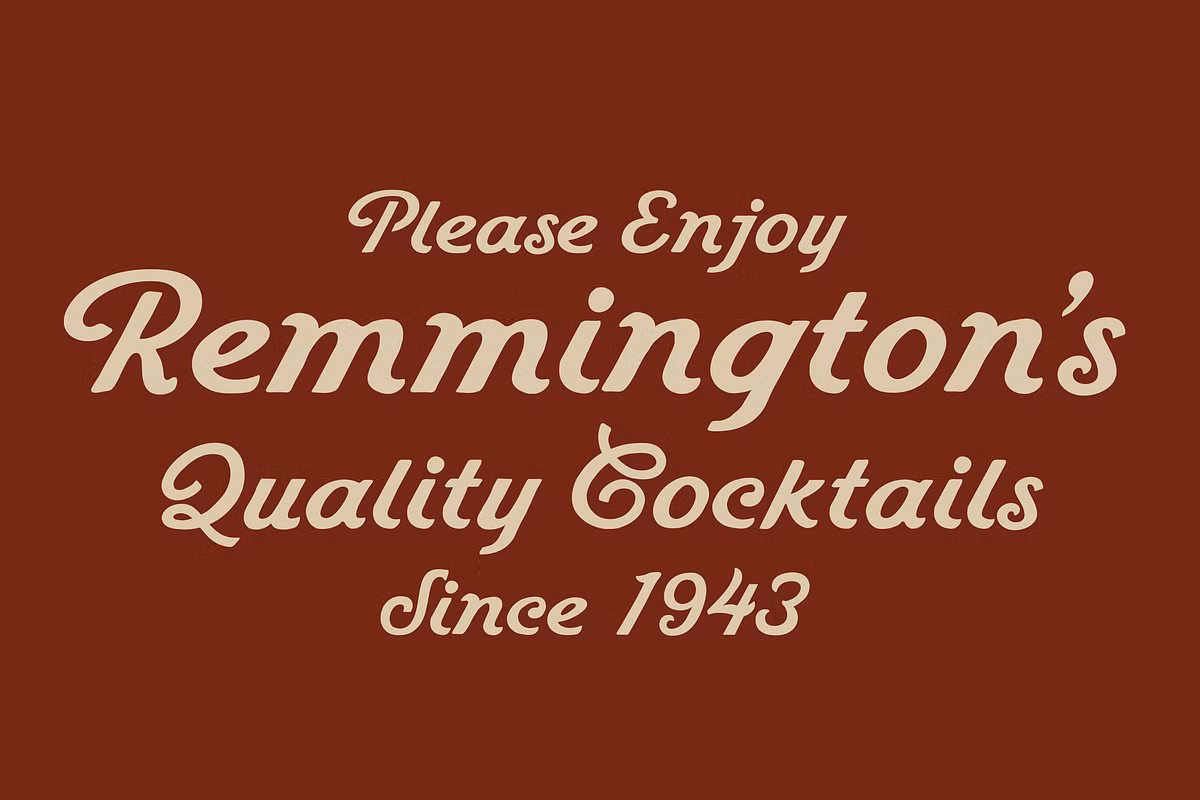
Mendocino: Vintage Hand-Painted Script Font for Authentic Design
Mendocino
Mendocino: Vintage Hand-Painted Script Font for Authentic Design
Mendocino is a non‑connective script font that looks like the hand‑painted signs. Mendocino has hand‑drawn shapes that give the feeling and the clear character to any design. I use Mendocino when I need a hand‑made look, for a design project. I also see businesses use Mendocino to give their brand a hand‑made look. Mendocino can work in ways. Mendocino can make a design look better.
Sample of Mendocino script font on a sign
Mendocino’s hand-painted aesthetic showcased.
Design Style of Mendocino
The design style of Mendocino sets Mendocino apart, from typefaces. Mendocino captures the look of hand painted signs. Mendocino uses lines and a few irregular shapes that bring a feeling and a real look. The non connective style of this script font gives Mendocino a casual look. The look makes Mendocino a good choice, for projects that need a touch.
When I look at Mendocino I see that each letter, in Mendocino is carefully made to feel natural like the sign painters. The different stroke weights give Mendocino a look. The different stroke weights let each word flow smooth and keep each letter unique. This makes Mendocino more, than a font. Mendocino becomes a visual story tool that can show feelings and reach people. I feel that Mendocino tells a story.
Character Sets and Features
Mendocino is made for uses. Mendocino includes a full character set. Mendocino gives the alphabet, the numerals, the punctuation and the alternates. The large set lets you write in ways, in your typography. The numerals match the look of the letters. The numbers fit into your designs without breaking the flow. I see how the numbers blend in when I work with Mendocino.
Character set example of Mendocino font
Mendocino’s comprehensive character set displayed.
Besides the letters Mendocino gives designers extra letter shapes. The extra shapes let designers add looks and make text feel unique. I have used Mendocino for custom logos and branding work. The alternates work well for any project that needs a feel. Using the alternates designers can make a look that moves and catches the eye. The result is a feel that helps the work stand out in a market.
Use Cases for Mendocino
Mendocino is flexible. The Mendocino fits design projects. Here are some real use cases where the Mendocino shines:
• Branding and Logo Design: Mendocino’s authentic, handcrafted aesthetic helps businesses show an image. In my experience Mendocino’s authentic handcrafted aesthetic works well, for brands, cafes and boutique shops. Mendocino’s handcrafted aesthetic feels genuine.
• Event Invitations: I have seen Mendocino add a touch to Event Invitations. The personal touch makes Event Invitations look nicer. The personal touch also sets the tone for the occasion.
• Packaging: I notice the vintage charm of Mendocino makes the charm of Mendocino ideal, for product packaging. The vintage charm of Mendocino works, for goods or organic products. The vintage charm of Mendocino gives a look that is needed.
• Marketing Materials: I use Mendocino on posters, flyers and social media graphics. Mendocino makes the design clear and strong. Mendocino helps the audience understand the message. Mendocino lifts the promotion work.
Mendocino font used in marketing materials
Mendocino enhances marketing materials effectively.
Typography benefits from the good font pairing. Good font pairing lifts the designs impact. Mendocino matches the typefaces. Mendocino lets the designer build balanced compositions that feel natural. Here are the pairing suggestions:
• Sans Serif Fonts: I have found that pairing Mendocino with a sans serif font such, as Montserrat or Open Sans works well. The modern look of the sans serif fonts sits against the style of Mendocino. The contrast creates a look, for designs.
• Serif Fonts: If you want a look I like to pair Mendocino with a serif font such, as Playfair Display. The serif font Playfair Display fits the curves of Mendocino. The serif font Playfair Display and Mendocino work well, for invitations. The serif font Playfair Display and Mendocino also work for high end branding.
• Other Scripts: If you are looking for a design try pairing Mendocino with a script font that has a quiet style. Mendocino and the simpler script font keep the look together. Mendocino also adds style variety to the text.
Mendocino is more, than a font. Mendocino is a typeface that gives a vintage hand‑painted look to a design. Mendocino has a set of characters that look different, from fonts. Mendocino works for projects. Mendocino matches well with fonts. Mendocino can make a project feel personal and real. If you want to build a brand identity you can use Mendocino. If you want to make an invitation you can use Mendocino. If you want to design packaging that stands out you can use Mendocino. I have used Mendocino in my work. I like the warm feel Mendocino adds. I love the script font. The vintage script font has charm. The vintage script font can spark my creativity. I will use the vintage script font in my design project.